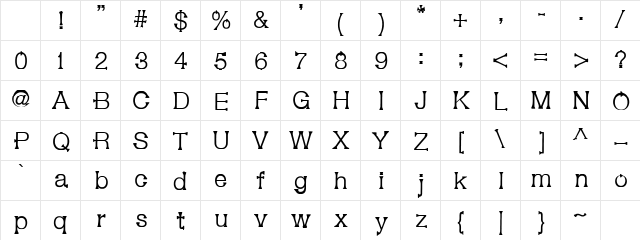
CBX-Trumpet is a composed and adaptable typeface that performs quietly and consistently across a wide range of design contexts.
Pro Tip: Use CBX-Trumpet in both headline and body roles to test its range before committing to a single application.